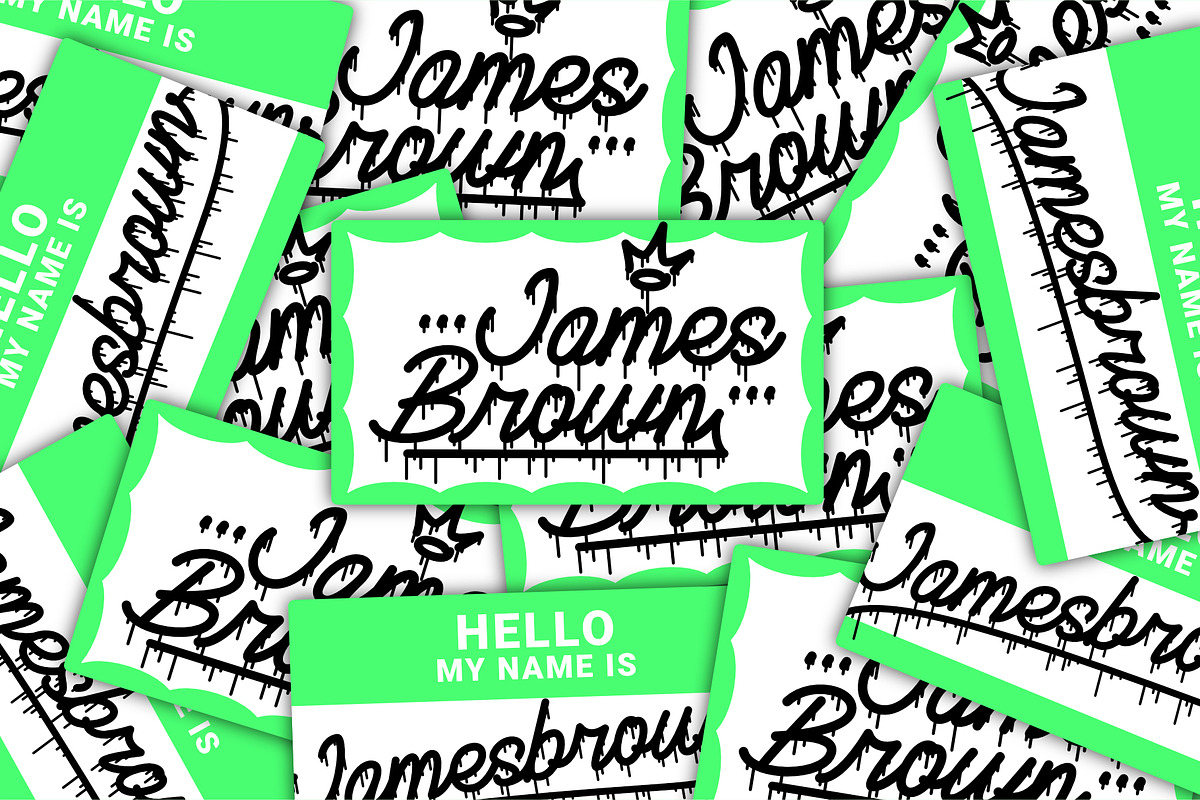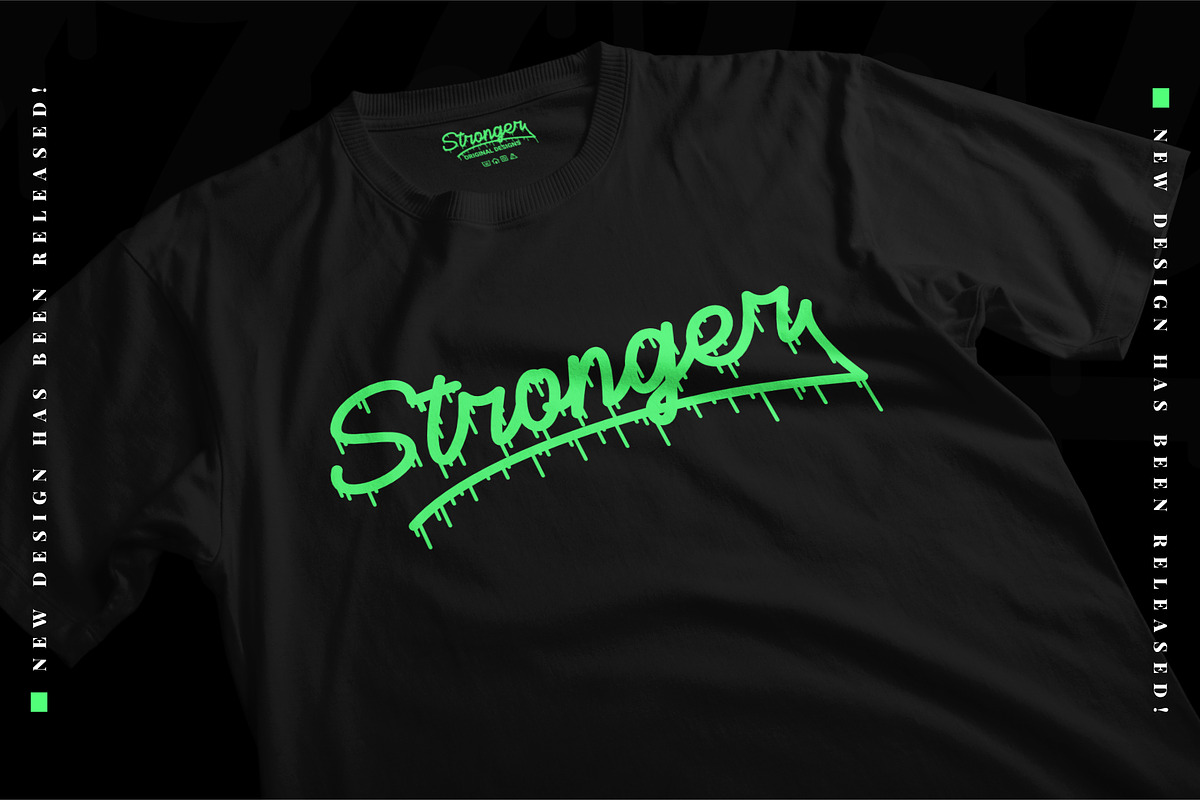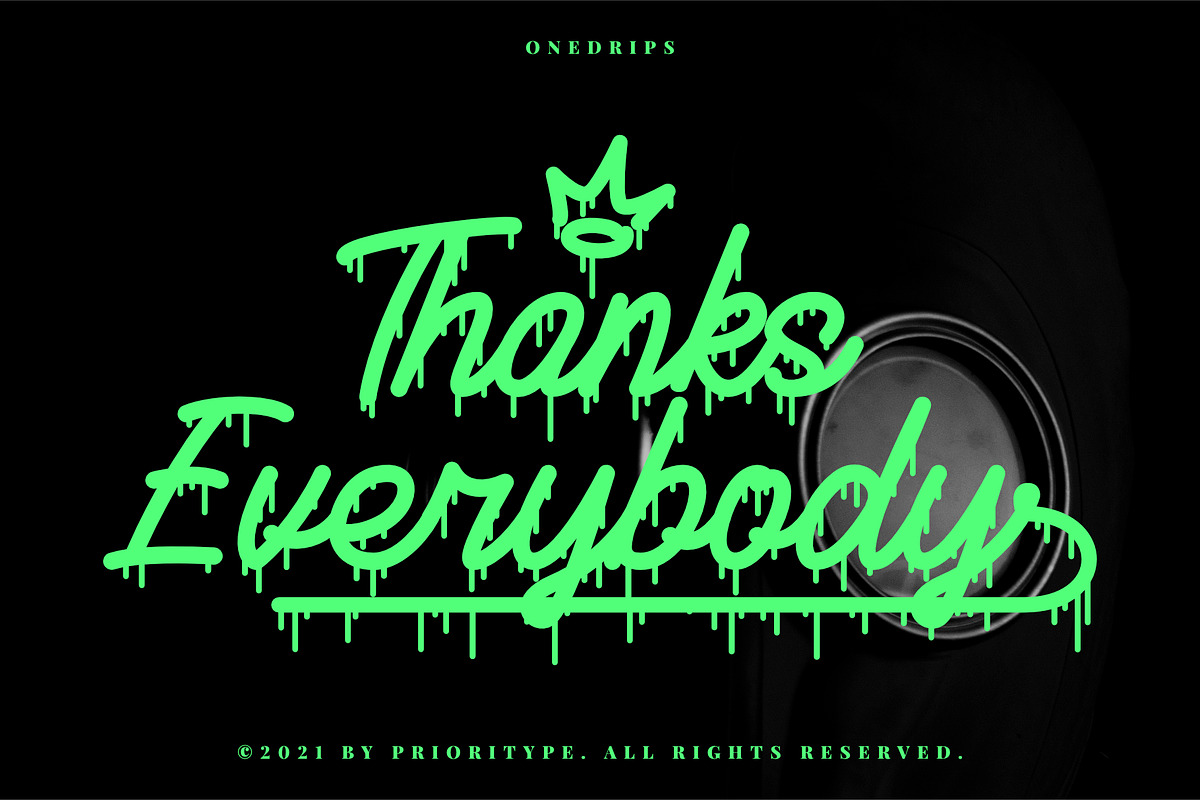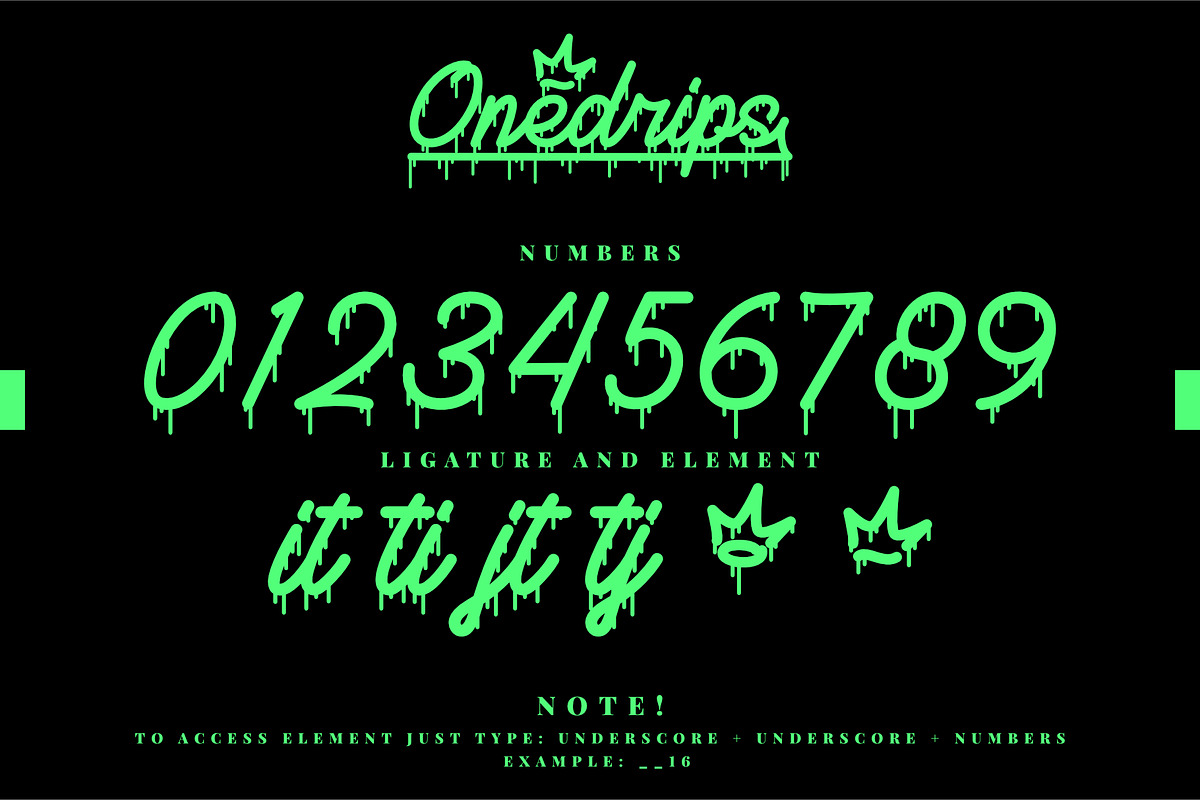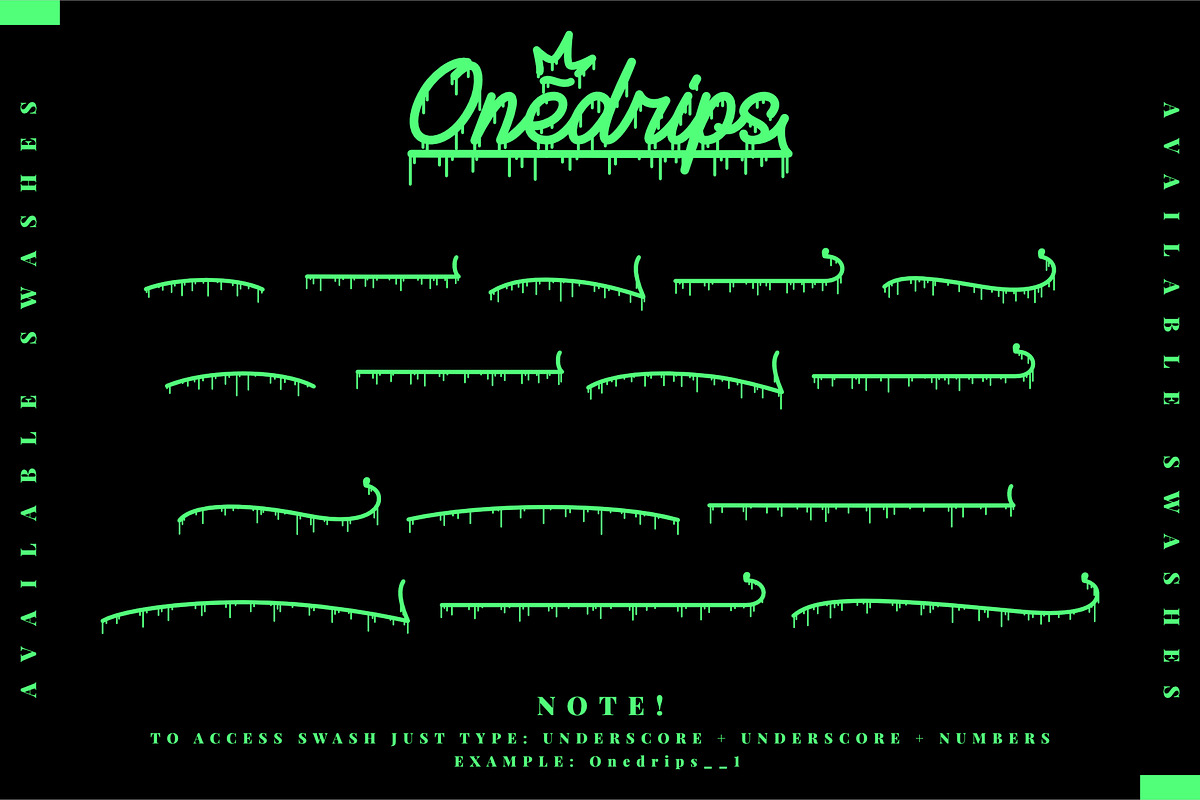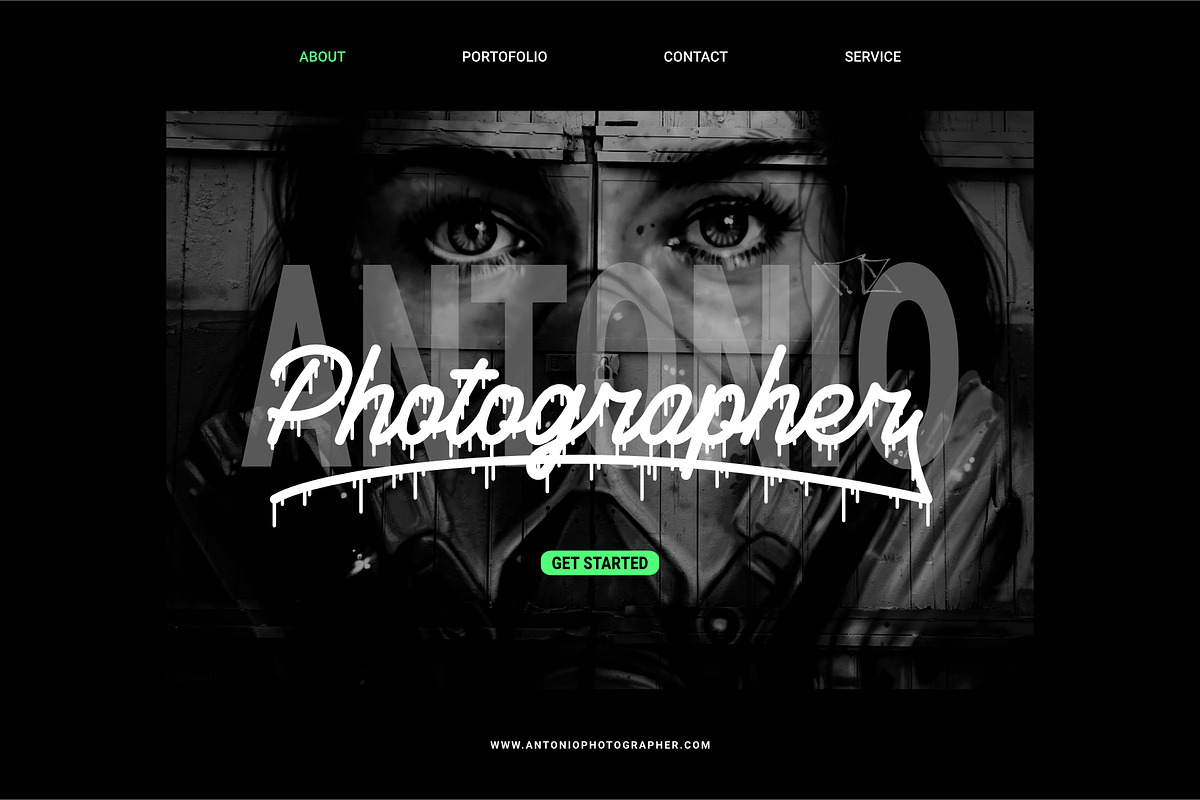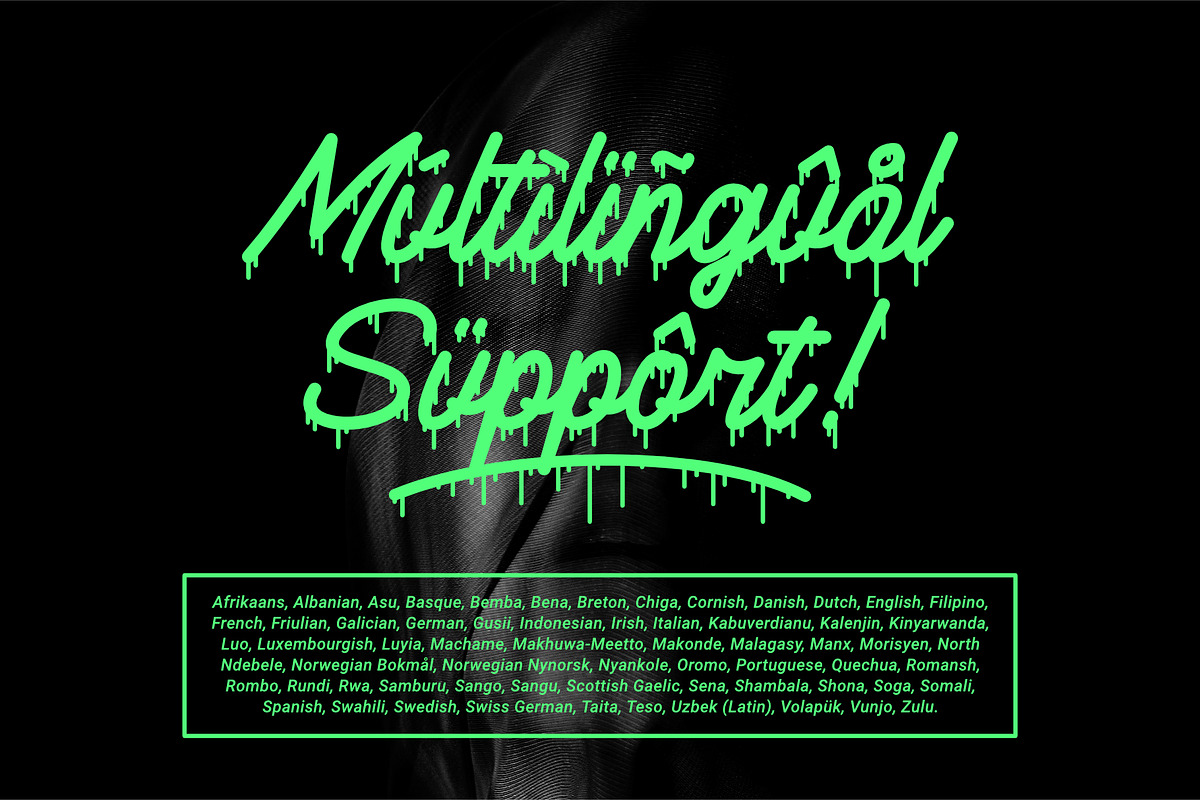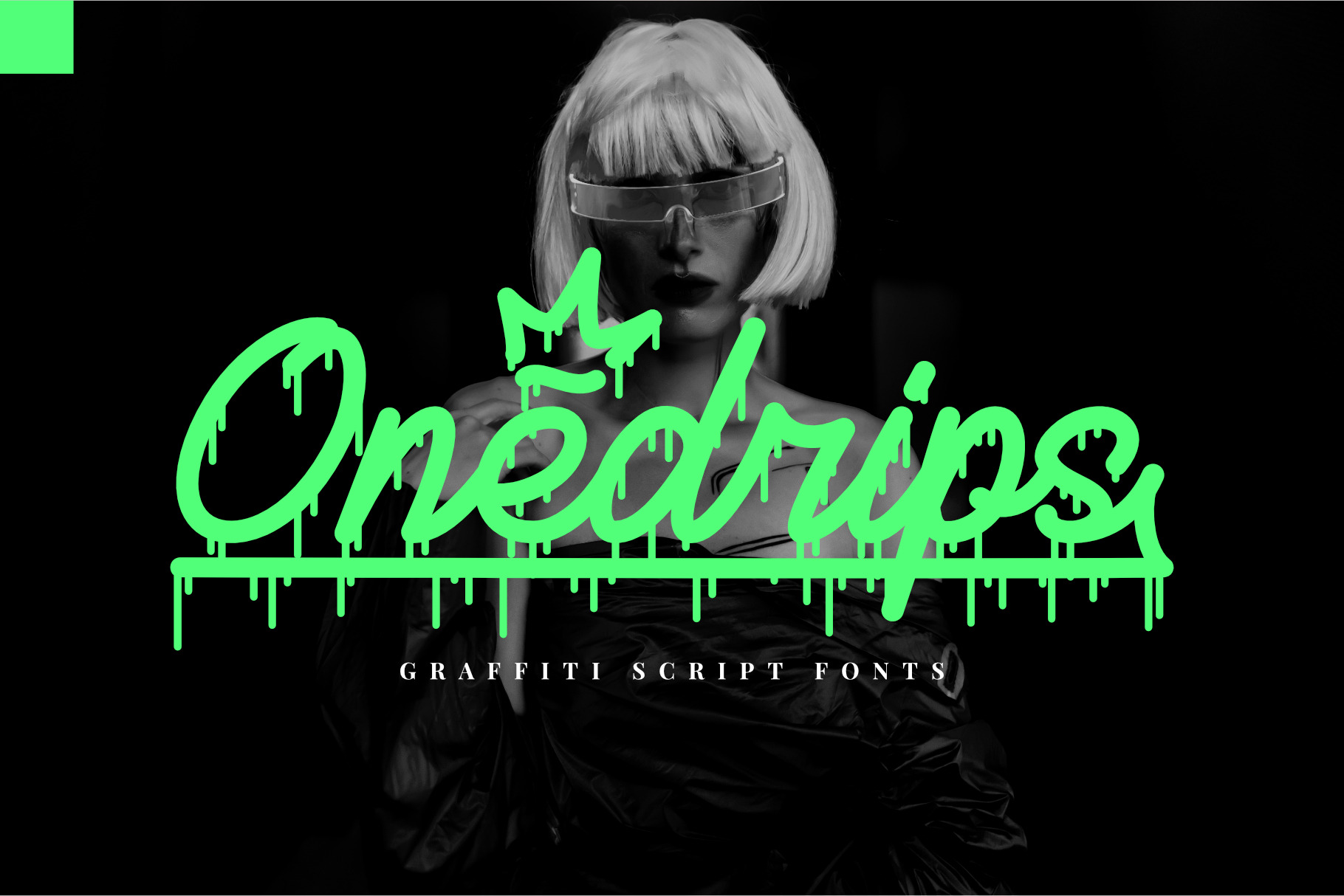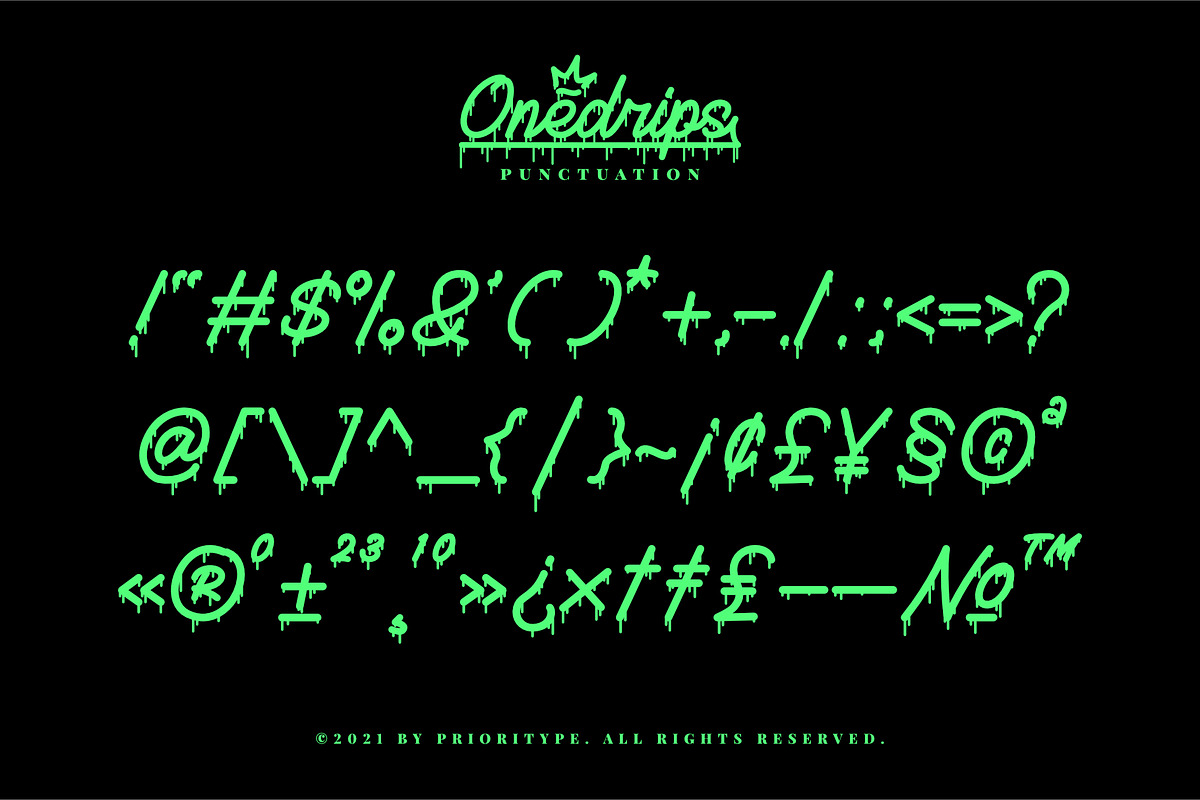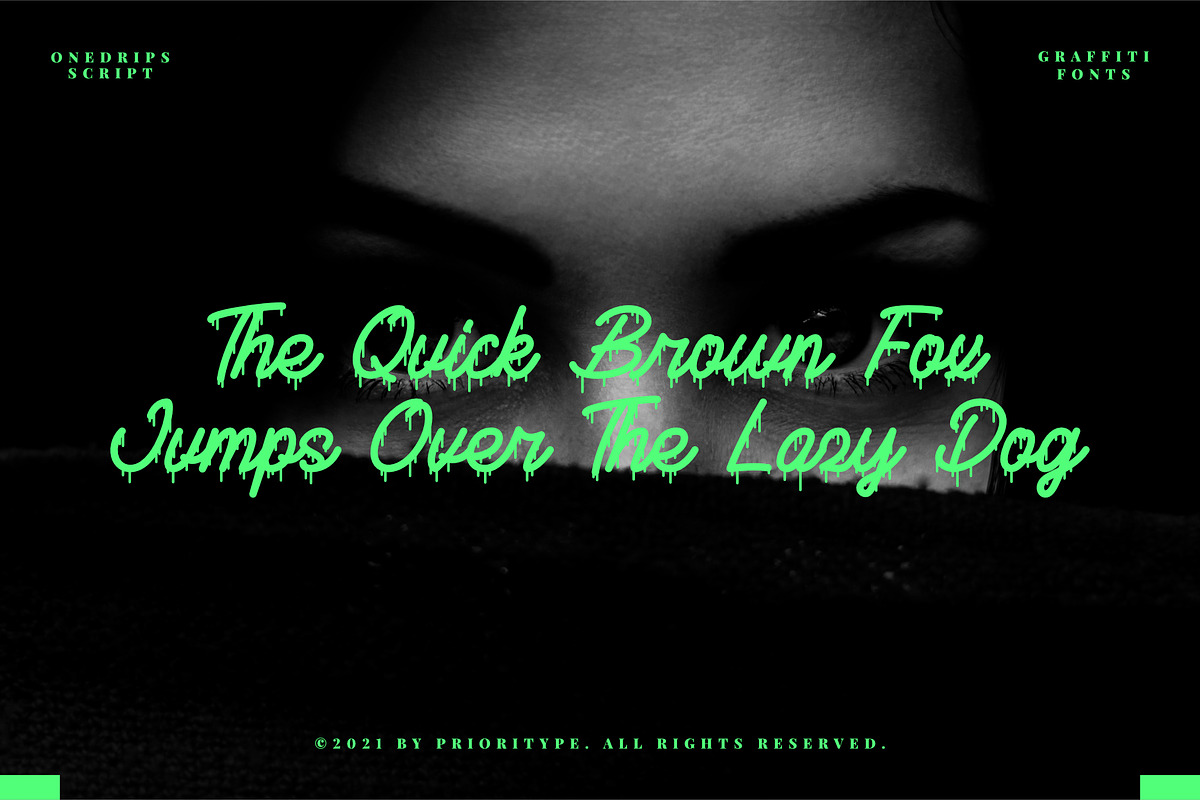
Onedrips - Graffiti Script Fonts
Script style fonts mixed with ink drop style are very special to work with you. You can use them in merchandise designs, album covers, t-shirt designs, youtube thumbnails, book covers, posters, stickers, social media posts, landing pages and much more you can make with this great item for any design!
Features: Uppercase, Lowercase, Numeral, Punctuation, Multilingual, Opentype Features & PUA Encoded.
Multilingual contained: Afrikaans, Albanian, Asu, Basque, Bemba, Bena, Breton, Chiga, Cornish, Danish, Dutch, English, Filipino, French, Friulian, Galician, German, Gusii, Indonesian, Irish, Italian, Kabuverdianu, Kalenjin, Kinyarwanda, Luo, Luxembourgish, Luyia, Machame, Makhuwa-Meetto, Makonde, Malagasy, Manx, Morisyen, North Ndebele, Norwegian Bokmål, Norwegian Nynorsk, Nyankole, Oromo, Portuguese, Quechua, Romansh, Rombo, Rundi, Rwa, Samburu, Sango, Sangu, Scottish Gaelic, Sena, Shambala, Shona, Soga, Somali, Spanish, Swahili, Swedish, Swiss German, Taita, Teso, Uzbek (Latin), Volapük, Vunjo, Zulu.